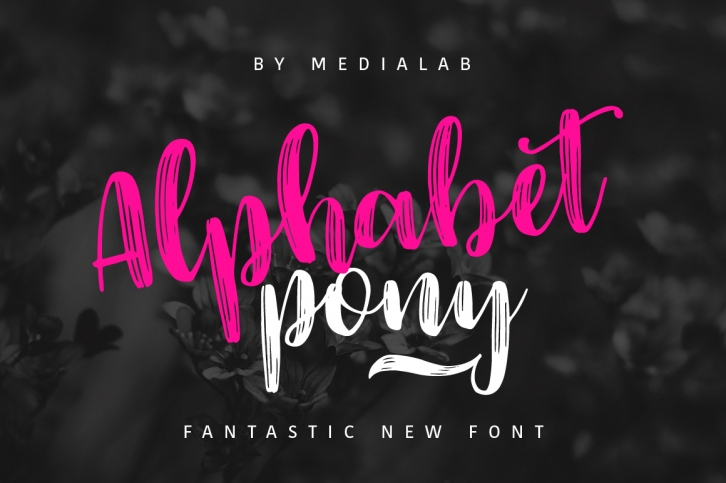
Alphabet Pony is a trendy and unique font with an authentic style. It was designed by MediaLab and it's a great choice for creative people who need such a font. It was released on October 13, 2016 and the file size is 11.17 MB. Alphabet Pony will add an organic vibe to any design idea!